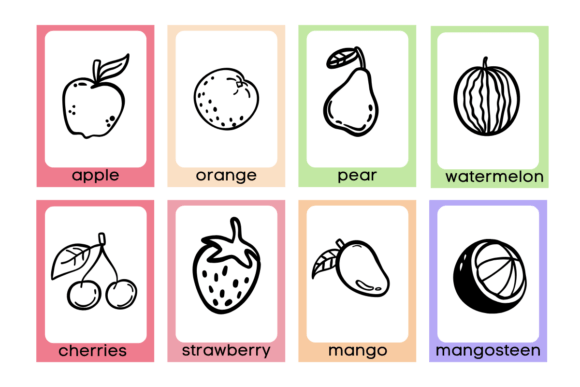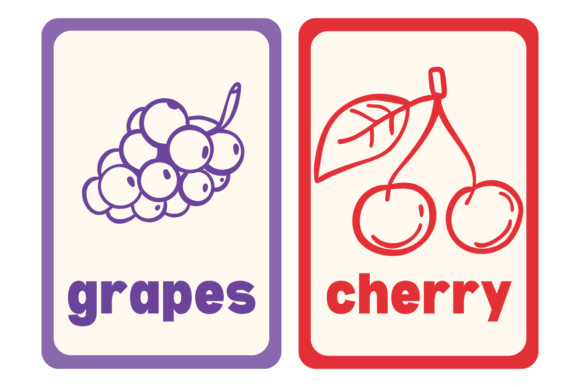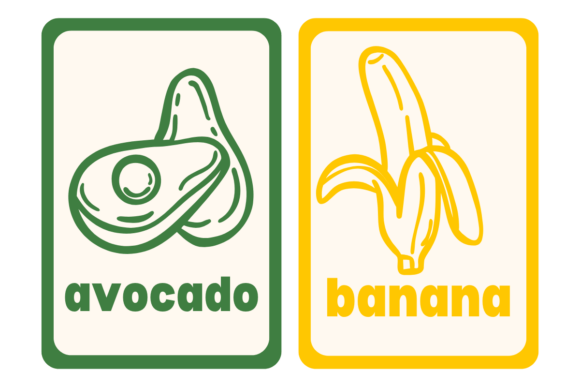
Introduction to Fruits Summer Font
Fruits Summer is a juicy and vibrant dingbat font featuring a fun variety of summer fruits in hand-drawn style.
With avocados, berries, melons, and more, itโs ideal for food packaging, summer-themed invitations, kidsโ crafts, and playful branding .
Key Features of Fruits Summer Font